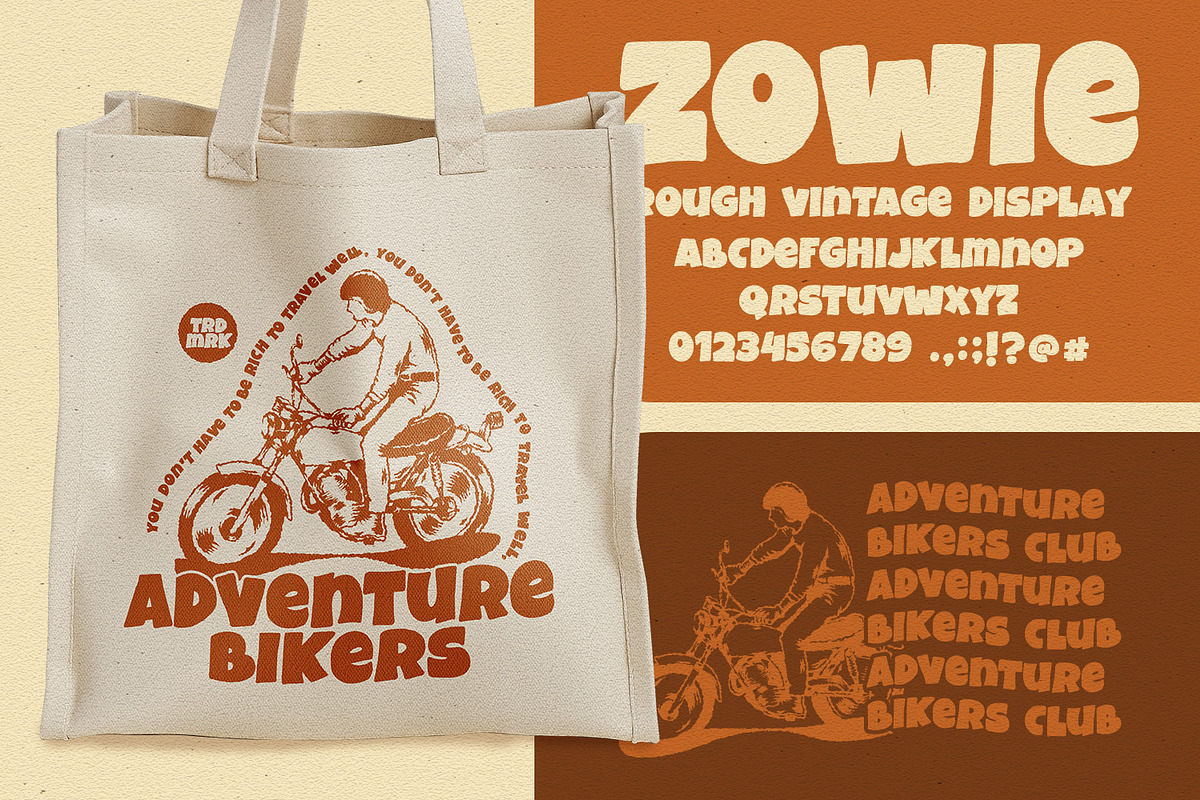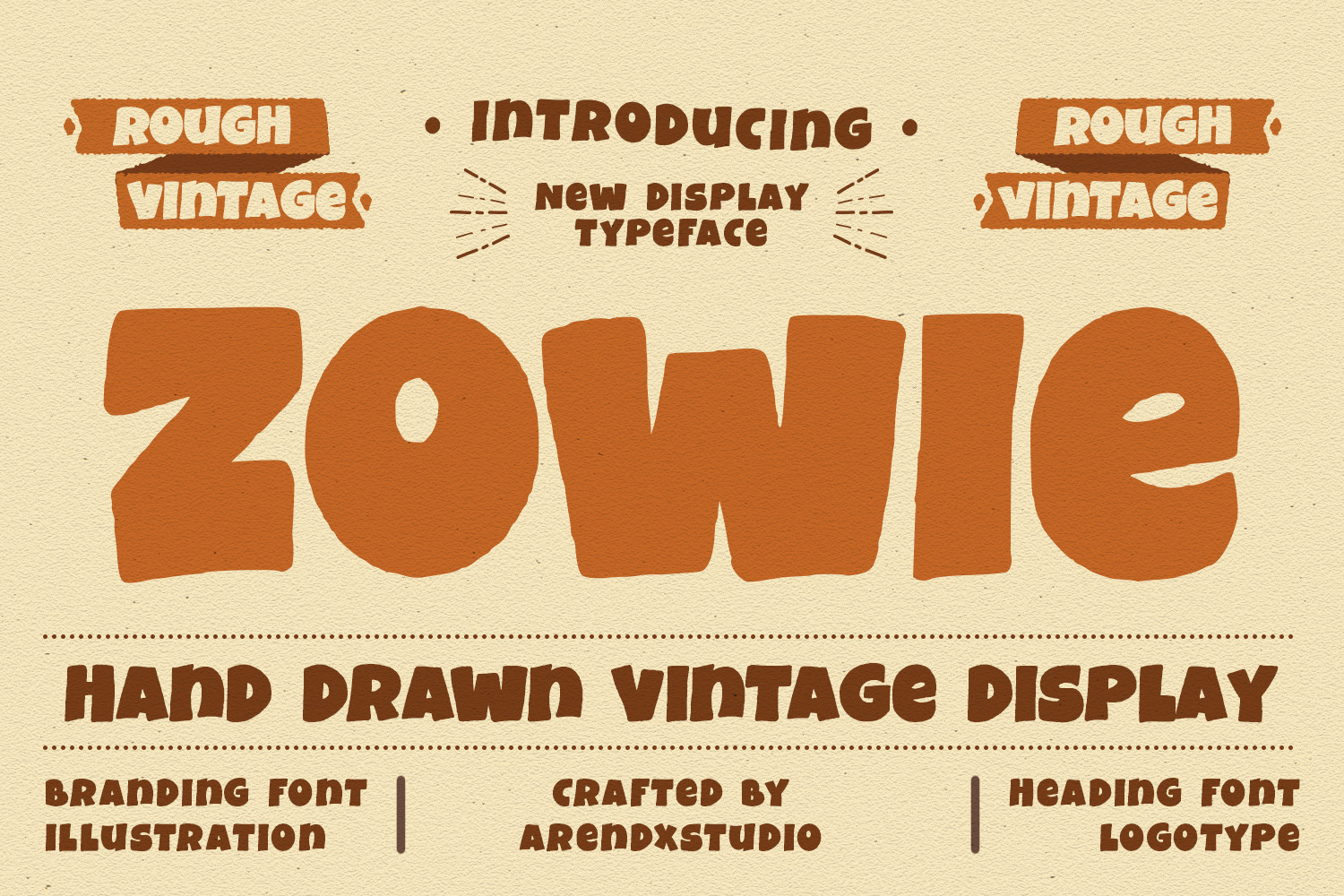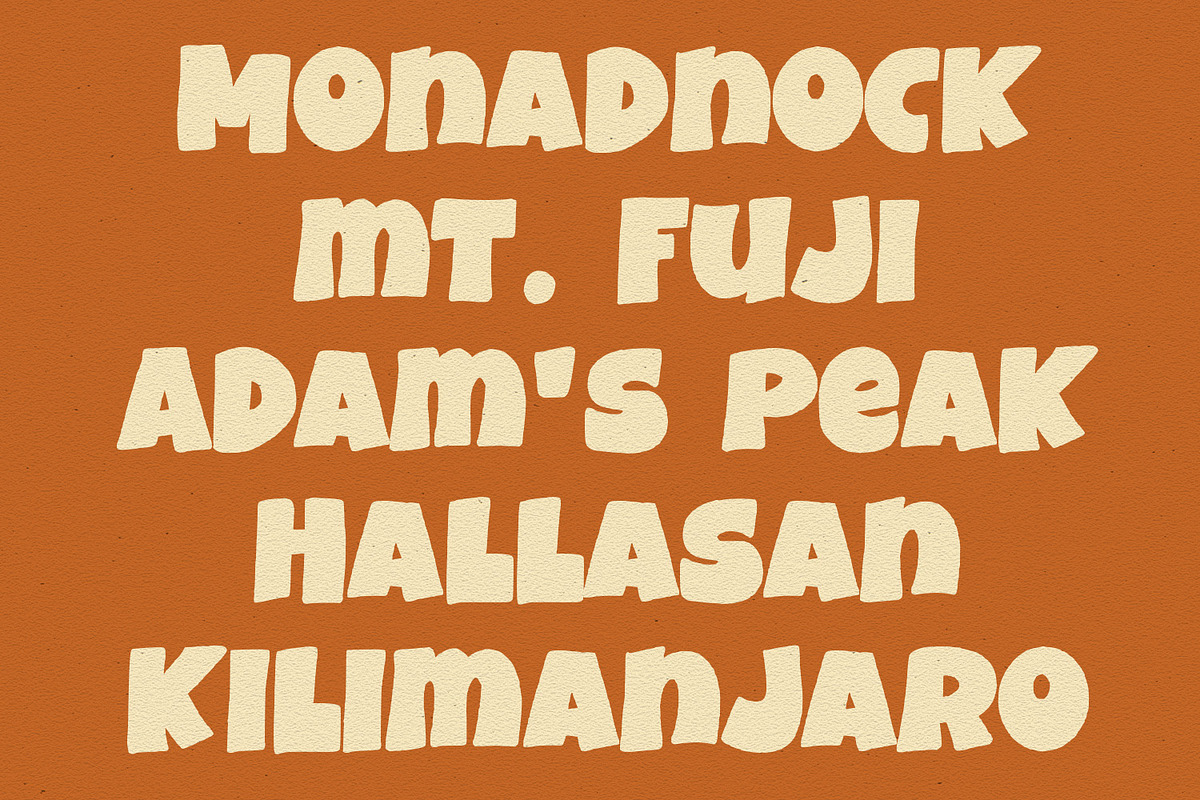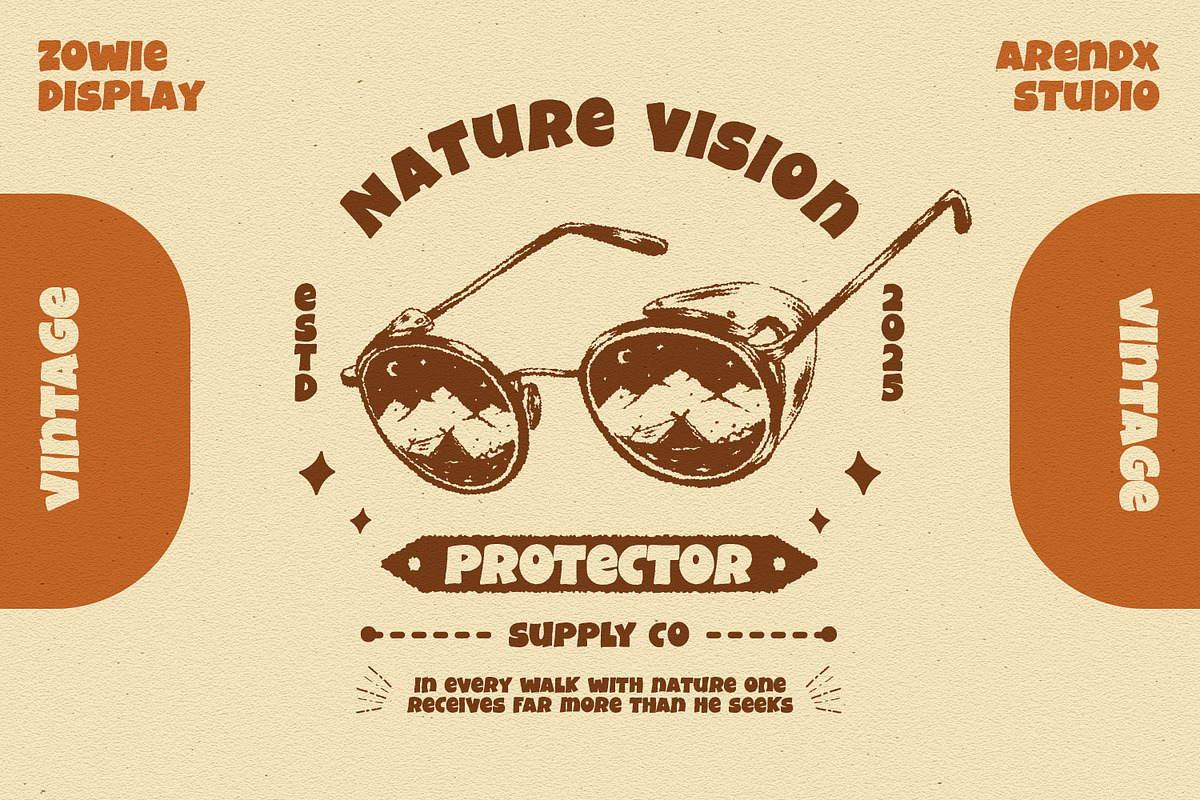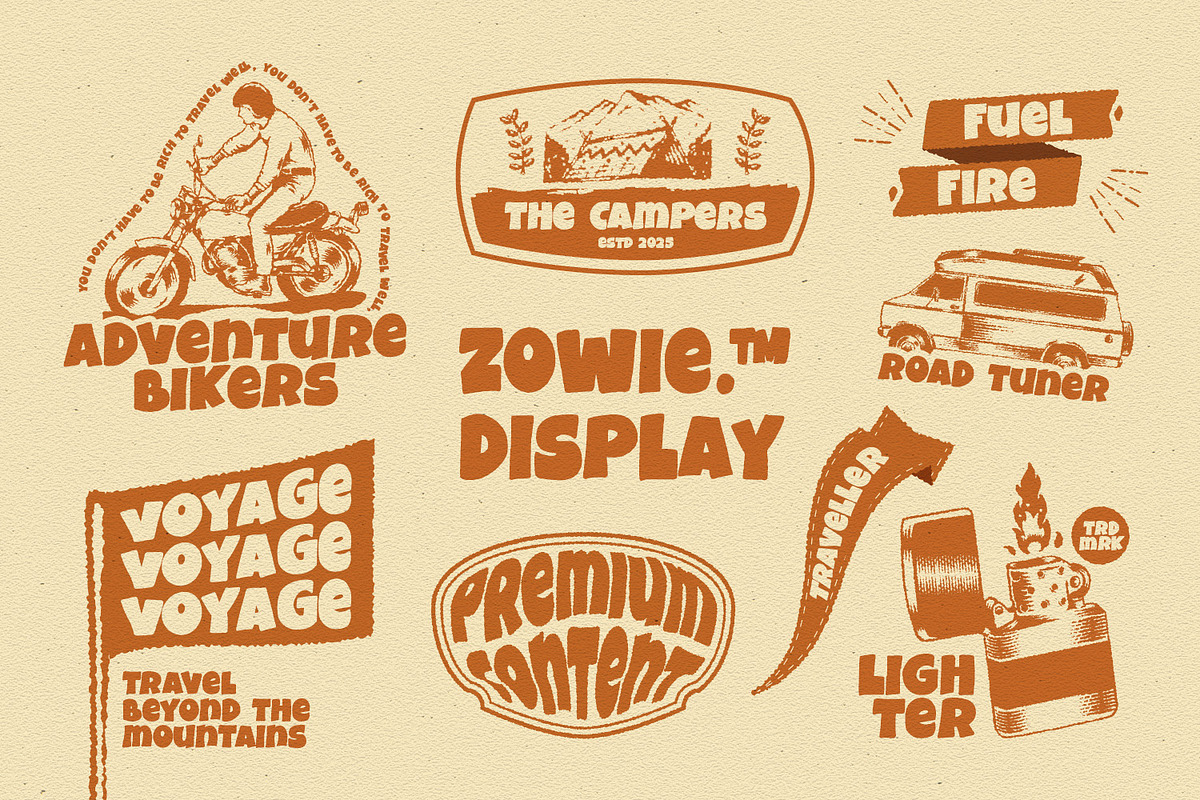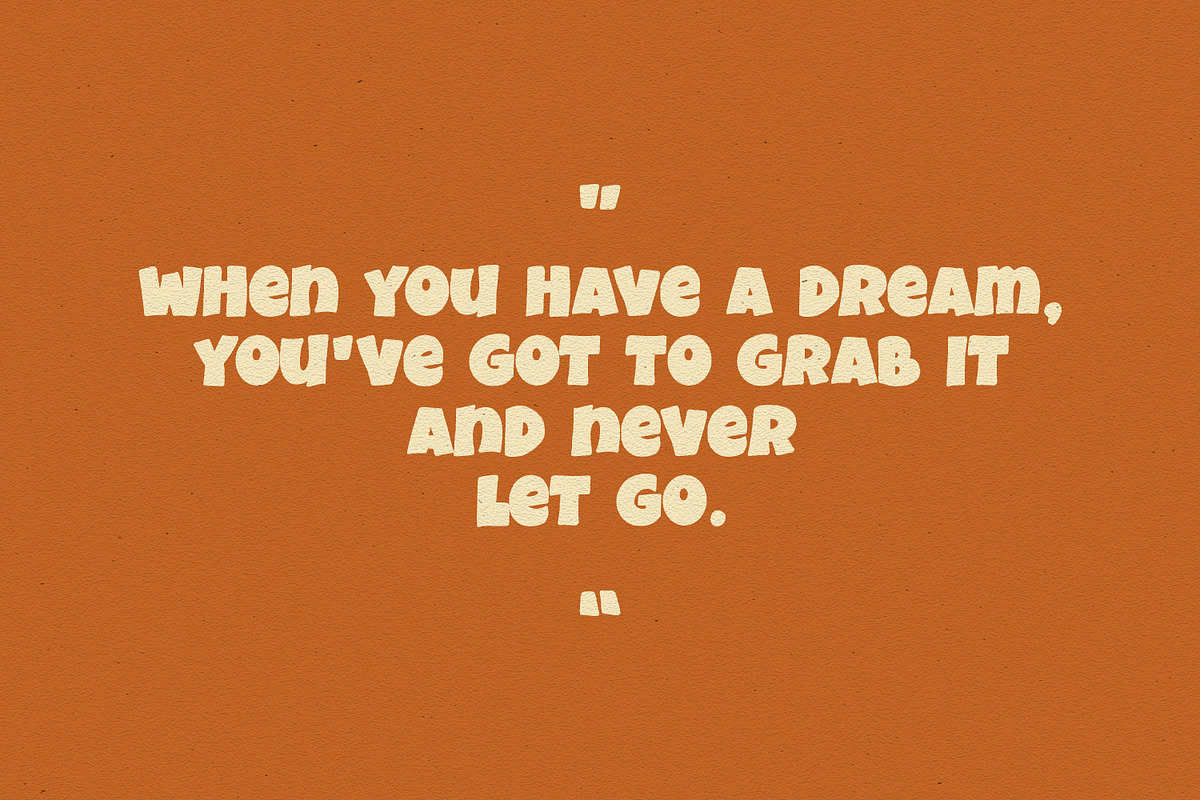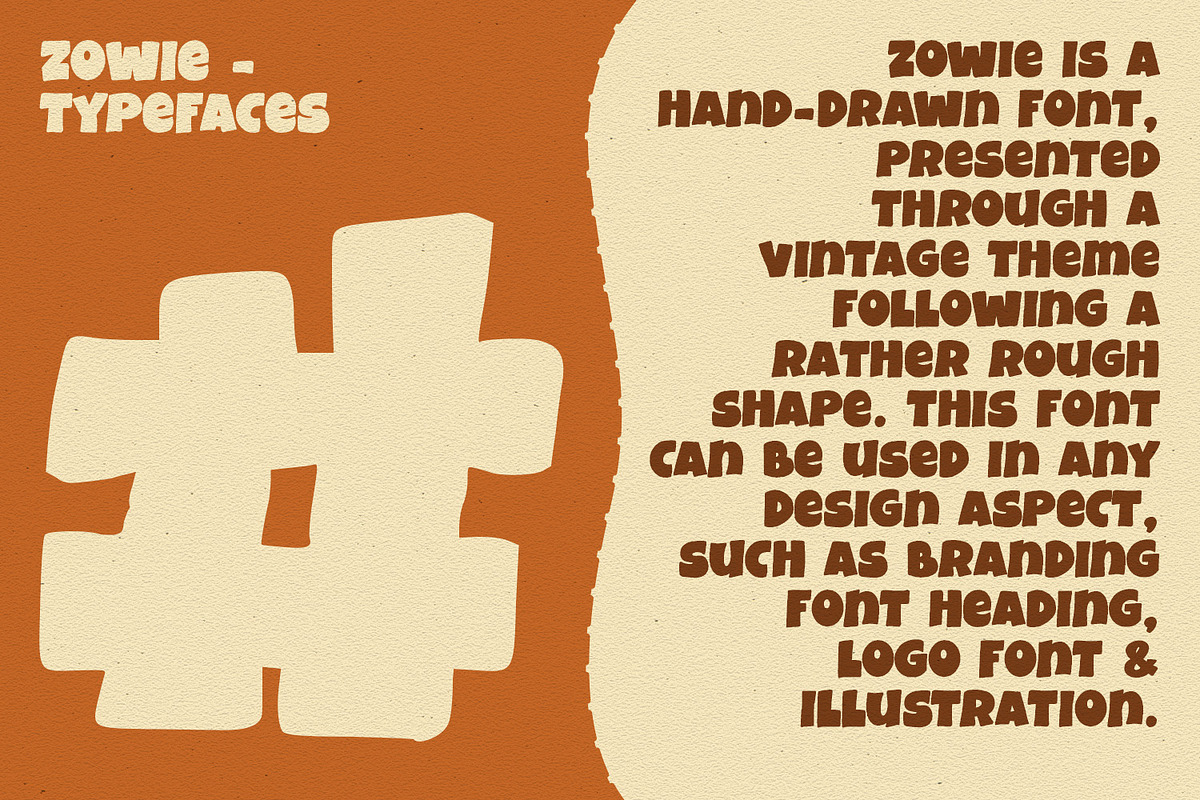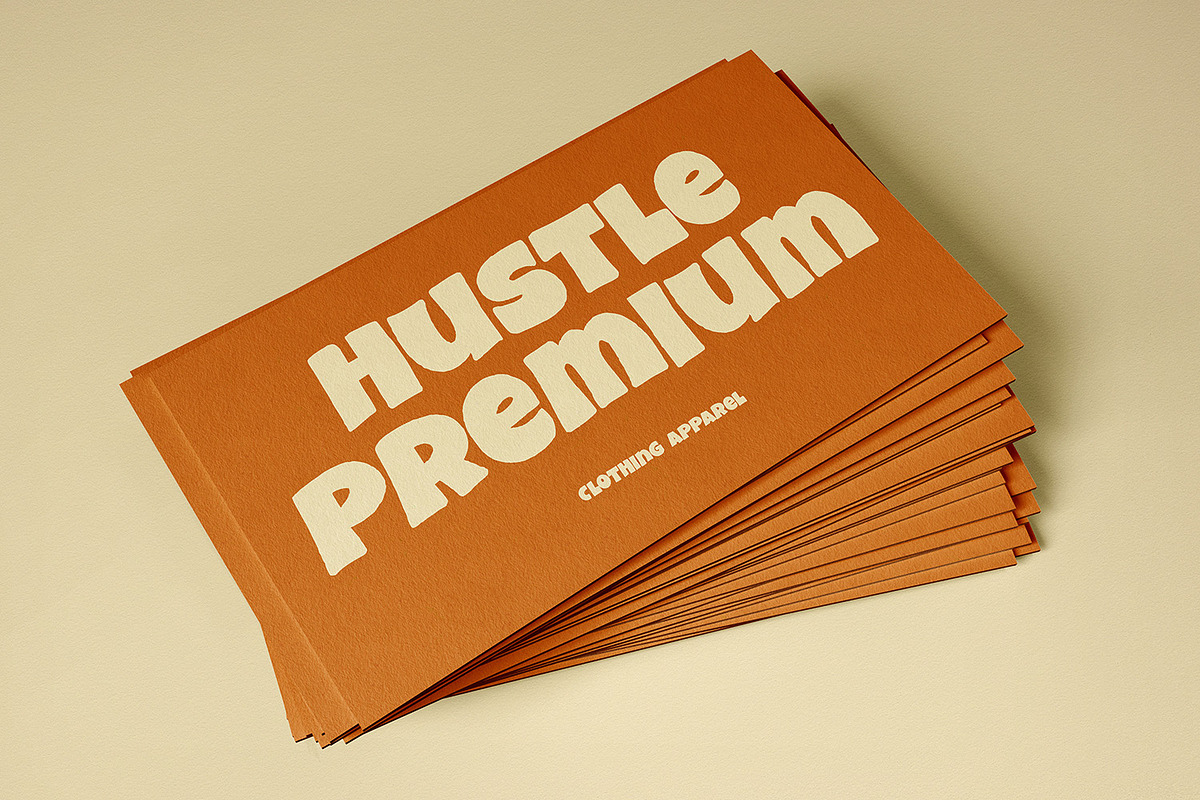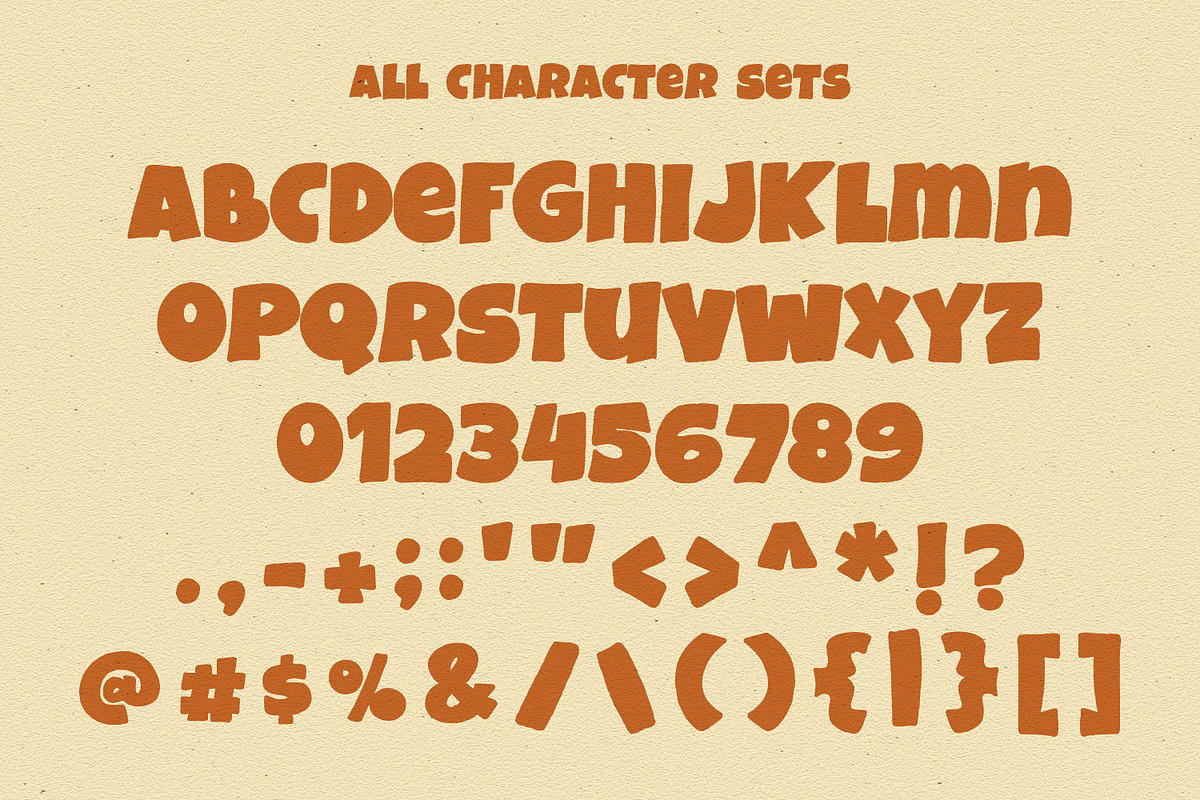
Zowie - Display Font
Font Description: Zowie
Zowie is a hand-drawn retro display font that bursts with the electric energy of 1960s comic books and psychedelic pop art. This font screams "BAM!" and "POW!" with its jagged edges, ink-splatter textures, and dynamic uneven strokes, perfect for projects demanding bold, playful nostalgia.
### Key Features:
- Retro Comic Vibes: Thick-thin contrast with accidental ink bleeds for authentic hand-drawn imperfection.
- Bonus Textures: Includes built-in halftone dots and spray-paint speckles (alternate glyphs).
- Full Character Set: Uppercase, numbers, and punctuation for chaotic customization.
### Perfect For:
- Vintage gaming logos (arcades, pixel art)
- Retro concert posters & skateboard decks
- Edgy branding (hot sauce, energy drinks)
- Comic book covers & pop art merch
Features : Uppercase and lowercase characters